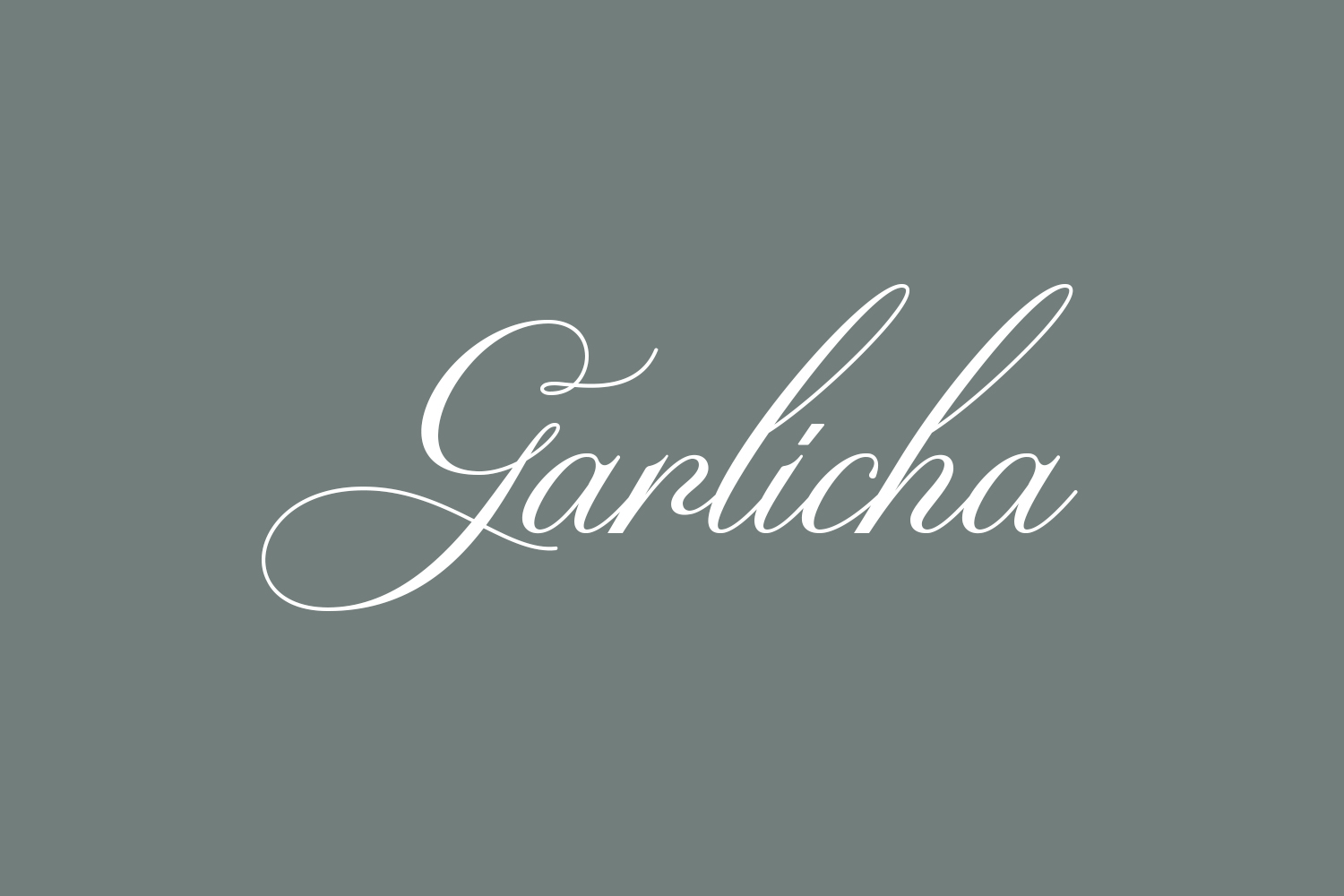
Script calligraphy Garlicha Free Font is a bold and expressive typeface that exudes elegance and sophistication. Its flowing lines and graceful curves capture the beauty of traditional calligraphy, while its modern, edgy design gives it a contemporary twist. With its sharp, angled strokes and intricate details, this font commands attention and adds a touch of drama to any project. Whether you’re creating a wedding invitation, a menu, or a logo, Garlicha Free Font is sure to make a statement and leave a lasting impression.
Designed by LetterStock